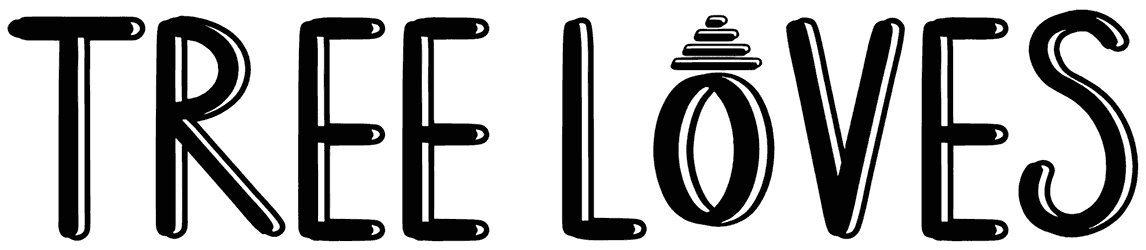
Tree Loves Font
Tree Loves is a font with narrow characters that can create a three-dimensional look in your writing. This font has elongated and thin letters that can create an industrial and modern look in your designs.
On the other hand, when you are looking for a shadow font in the design of headlines, book covers, or posters for science fiction films, Tree Loves can overcome the repetitive boundaries and open a window to a new world without lowercase letters.
Designed by: Milea Sajojo